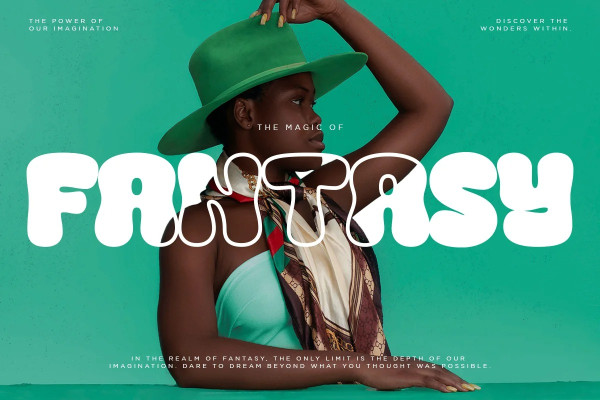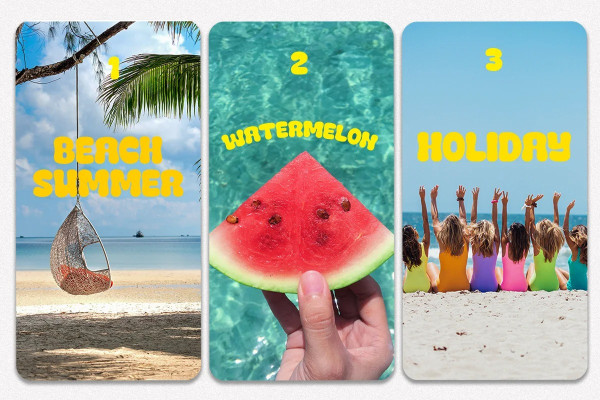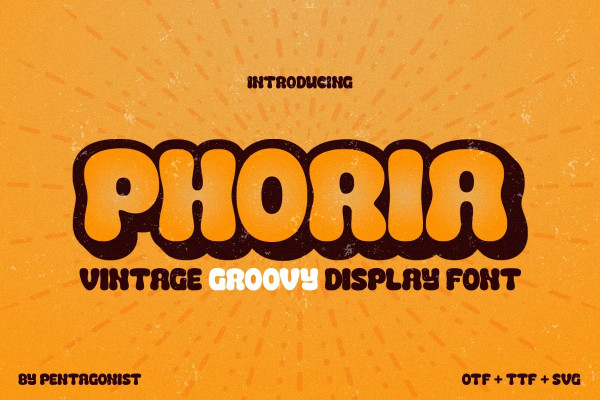
Phoria Font
Phoria Font Is A Vintage Display Character Inspired By Stylish and Groovy Style. This font was created for all forms of business and branding such as clothing, logos, skate boards and others according to your needs.